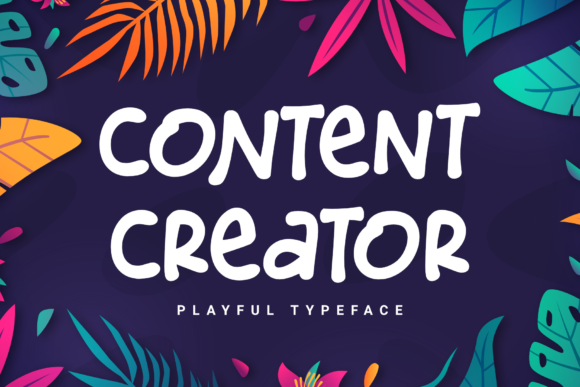
Introduction to Content Creator Font
Content Creator is a relaxed and casual handwritten font.
It has a modern yet whimsical style and it will undoubtedly immerse your designs into a magical world .
Key Features of Content Creator Font